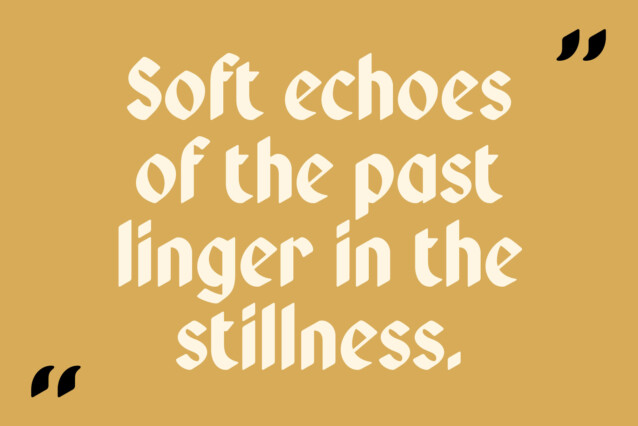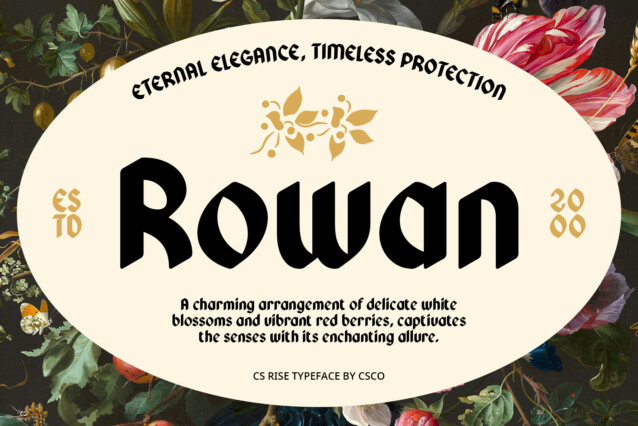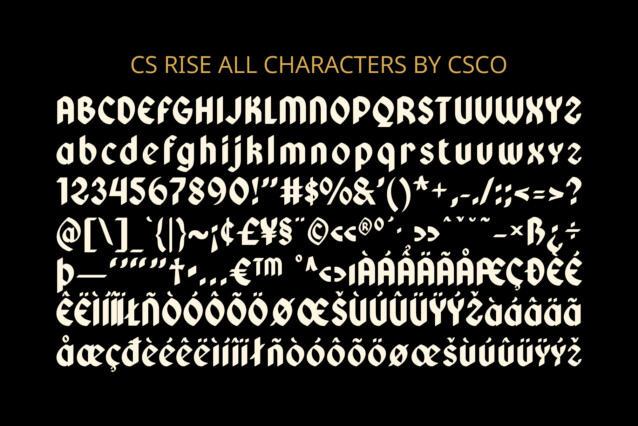
CS Rise Font
CS Rise Font is a bold display font that combines the sharp elegance of traditional blackletter with rounded, softer edges, offering a unique fusion of historical charm and contemporary appeal. This distinctive typeface captures the powerful, dramatic essence of blackletter while providing a more approachable and modern feel, making it perfect for designs that seek to make a strong visual statement.